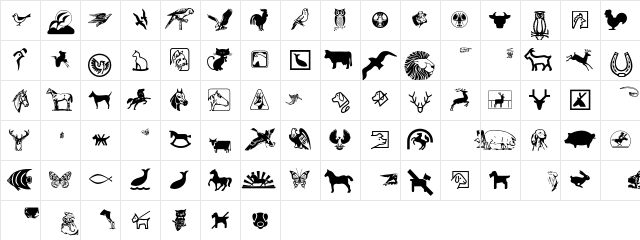
AnimalsP01 Regular
Design Context for AnimalsP01
AnimalsP01 is a composed and adaptable typeface that performs quietly and consistently across a wide range of design contexts.